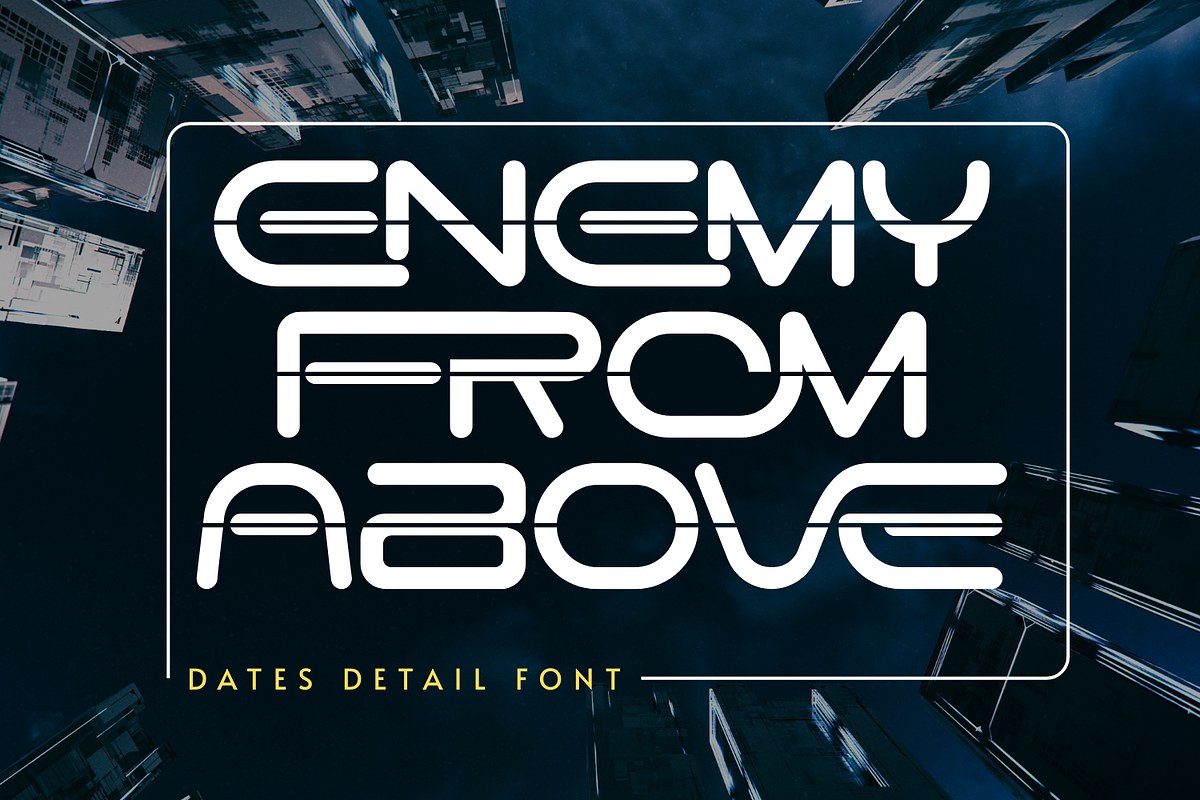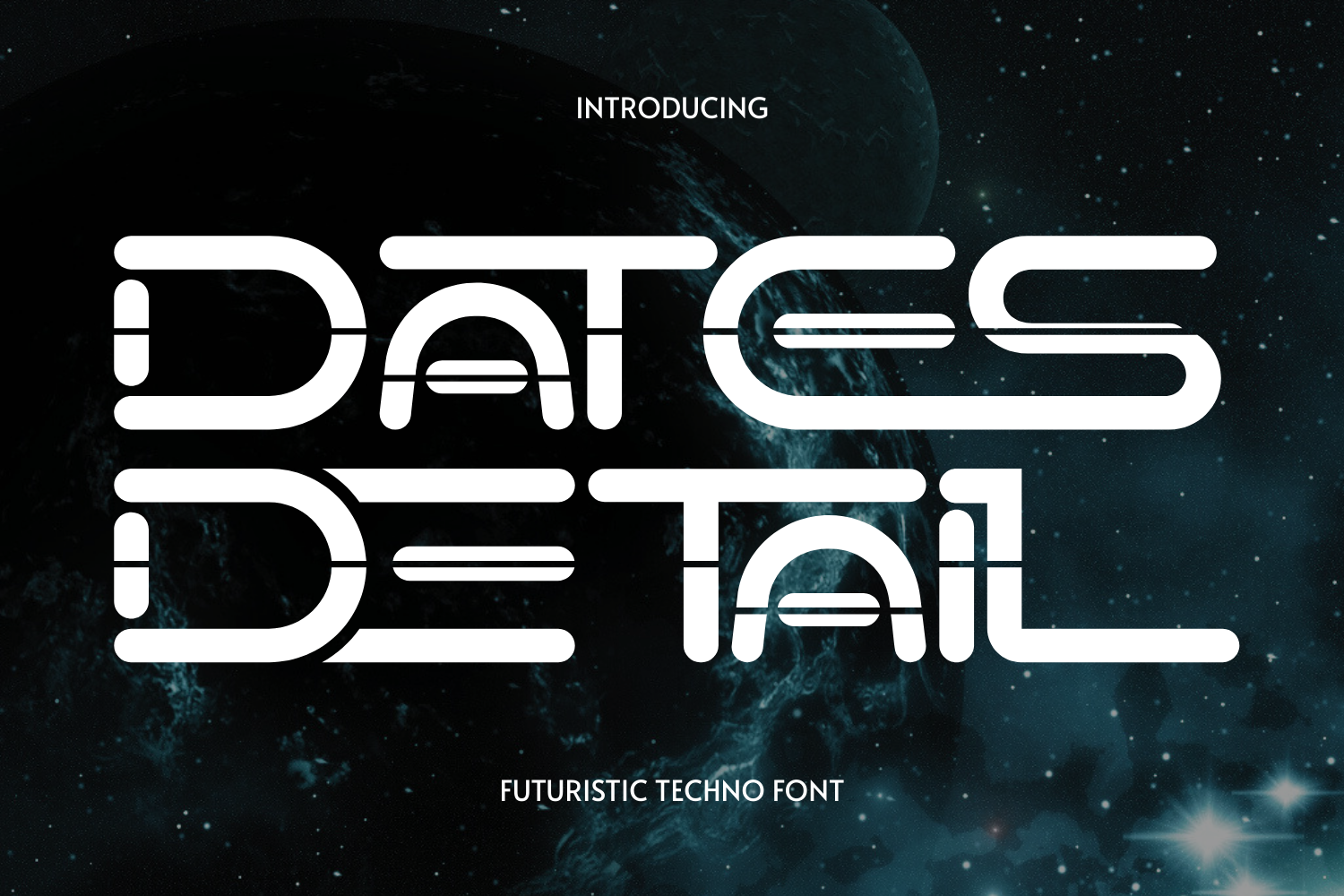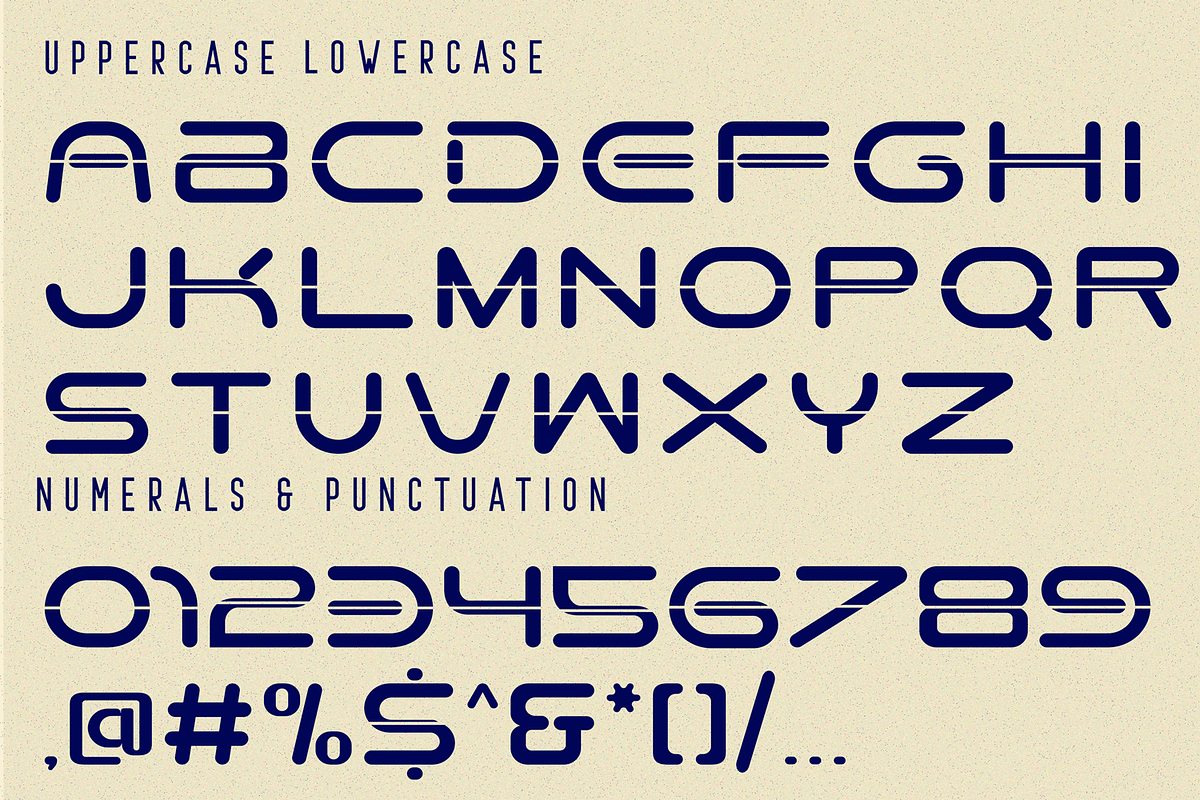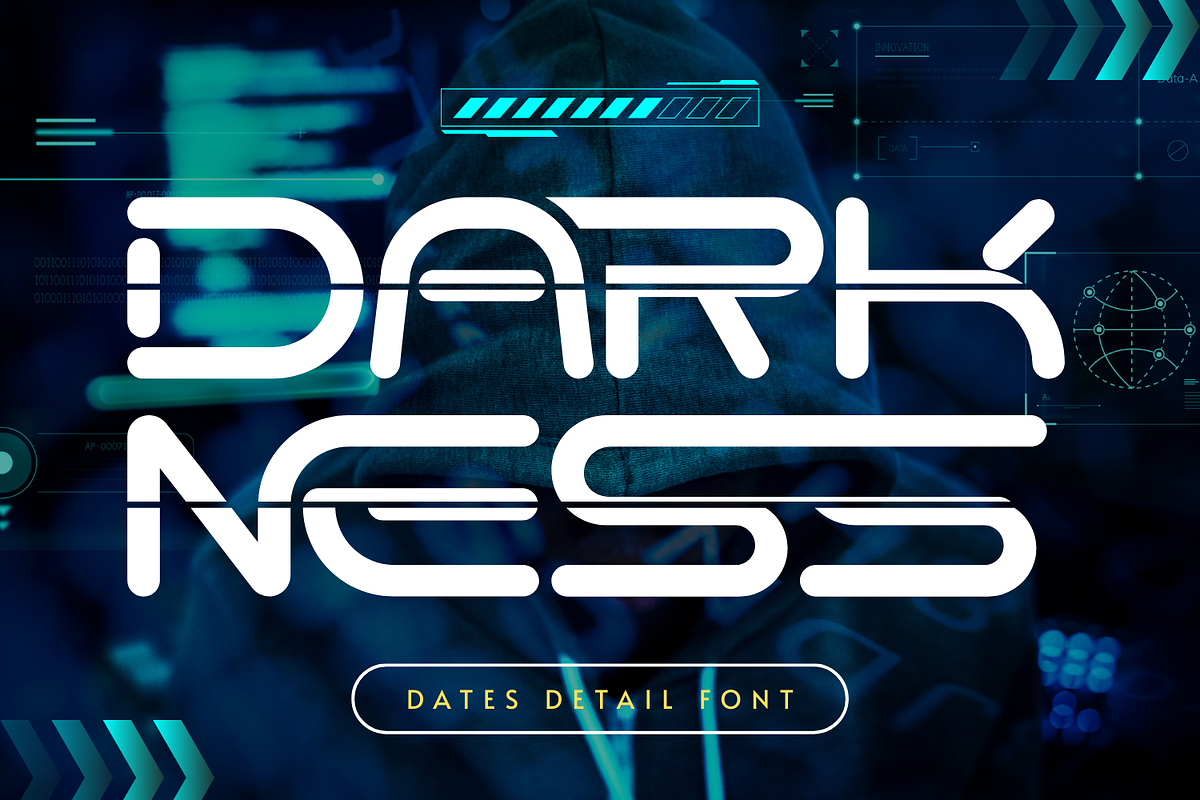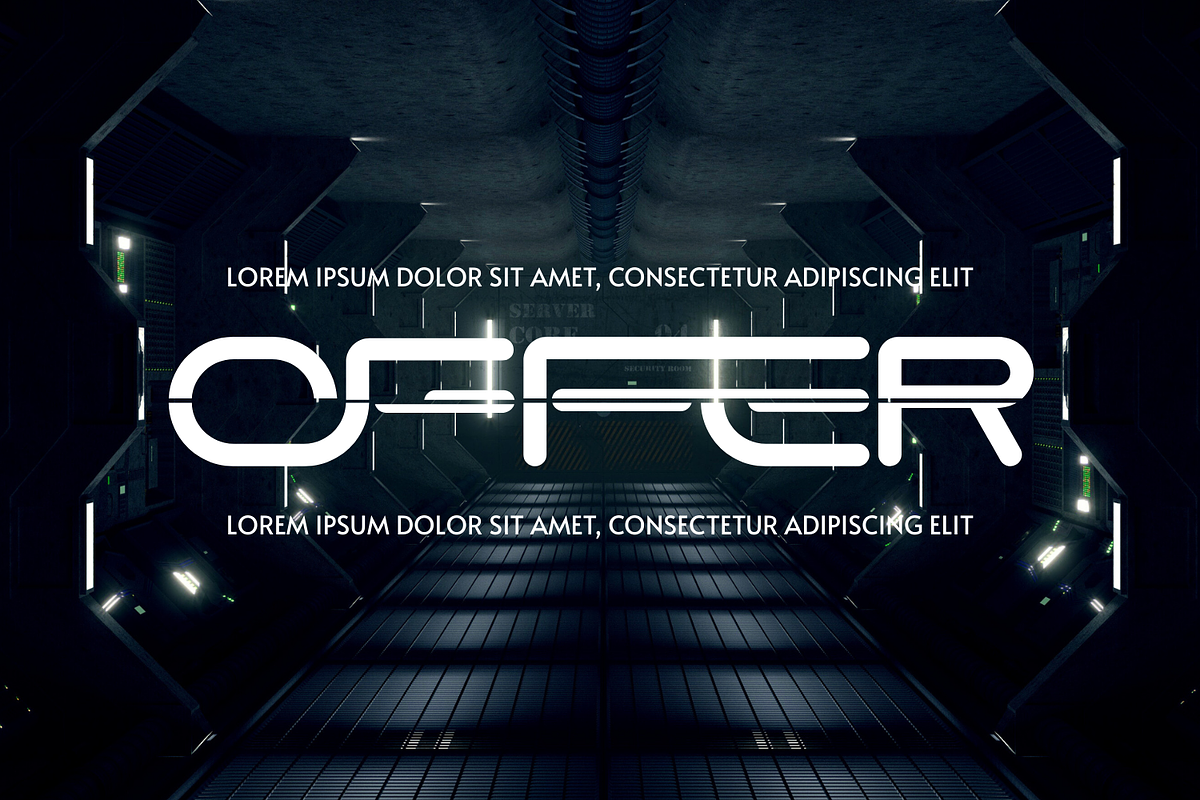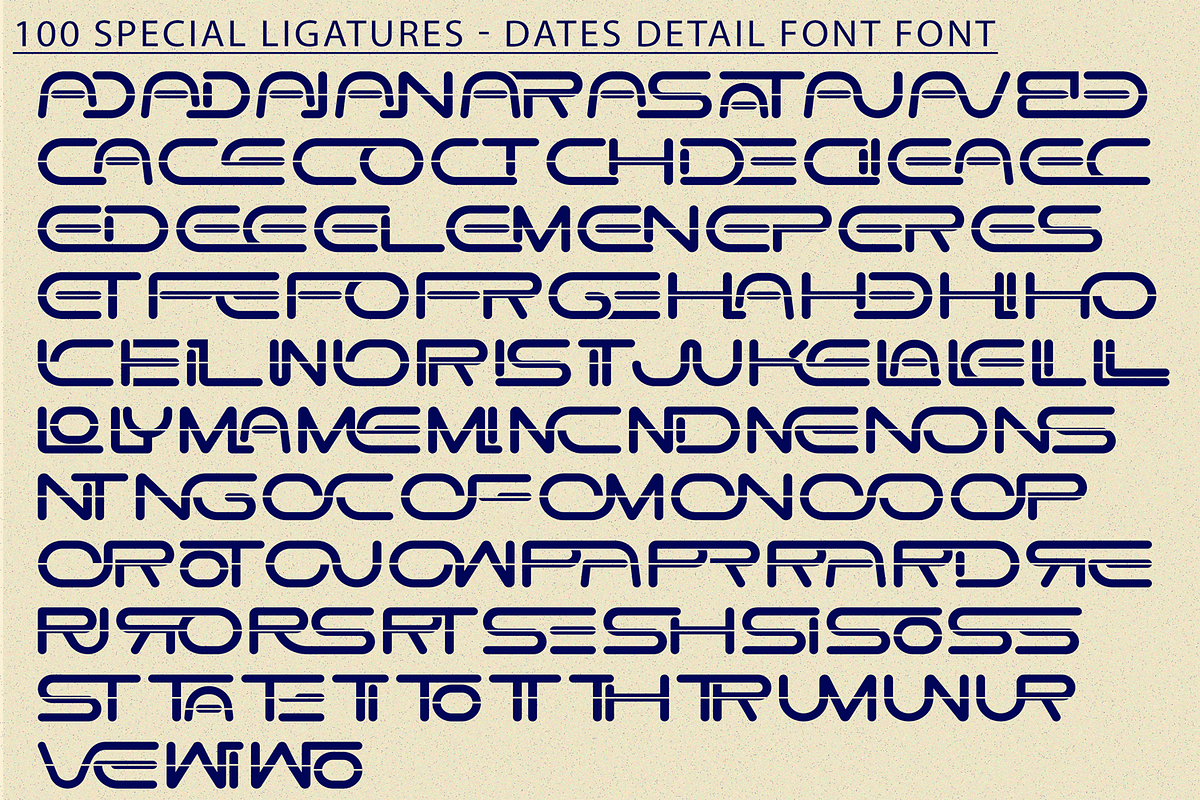
Dates Detail - Futuristic Font
Dates Detail - Futuristic Font, a futuristic and sci-fi inspired display font crafted with precision and modern aesthetics. This typeface is built on a modular geometric system, featuring bold rounded edges, sharp alignments, and unique cut-out shapes across the characters. The combination of smooth curves and technical line breaks gives it a high-tech, digital appearance, making it ideal for futuristic branding, gaming interfaces, sci-fi posters, and modern tech projects.
- Complete Uppercase letters
- Around 100 Special Ligatures
- Accented characters for multilingual support
About 100 ligatures combined with Stylistic Alternates Font:
AC AD AL AN AR AS AT AU AV BE CA CE CH CO CT DE DI EA EC ED EE EL EM EN EP ER ES ET FE FO FR GE HA HE HI HO IE IC IL IN IO IR IS IT JU KE LA LE LI LL LO LY MA ME MI NC ND NE NG NO NT NS OC OF OM ON OO OP OR OT OU OW PA PR RA RD RE RI RO RS RT SE SH SI SO SS ST TA TE TH TI TO TR TT UM UN UR VE WI WO